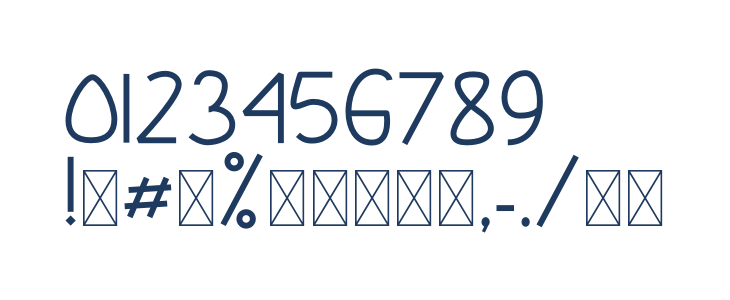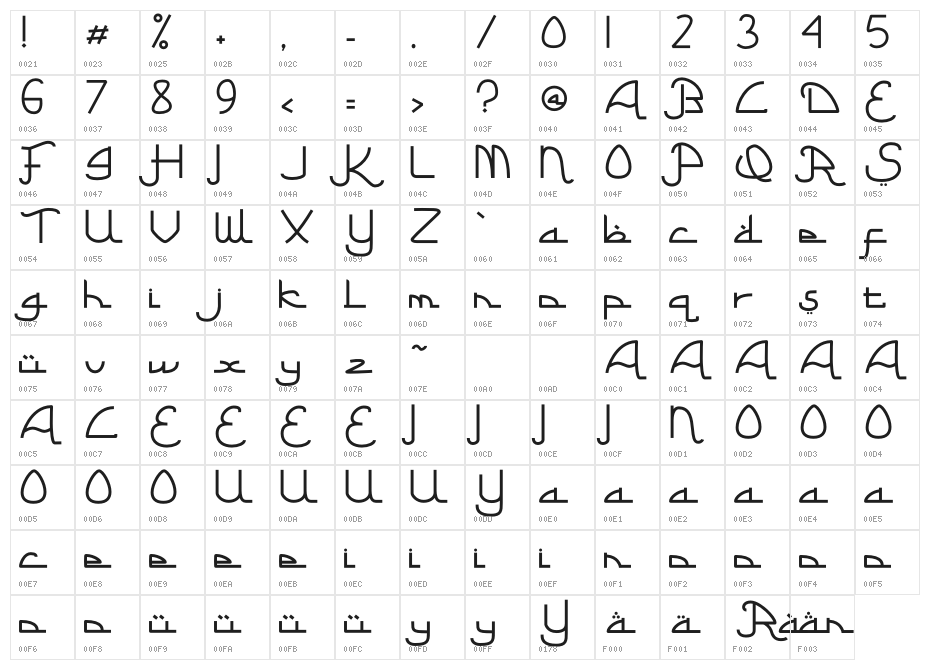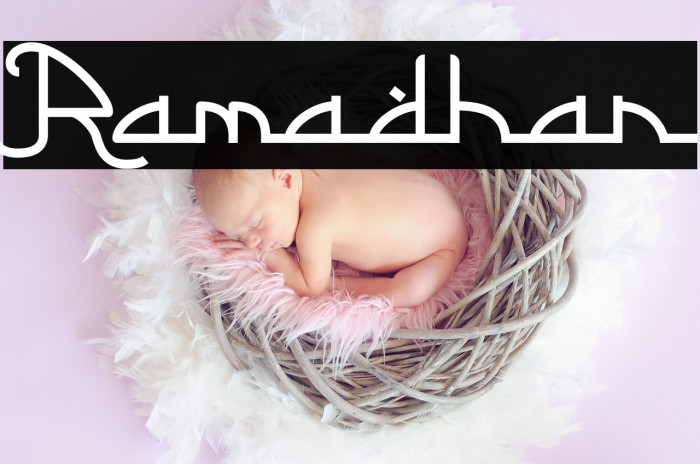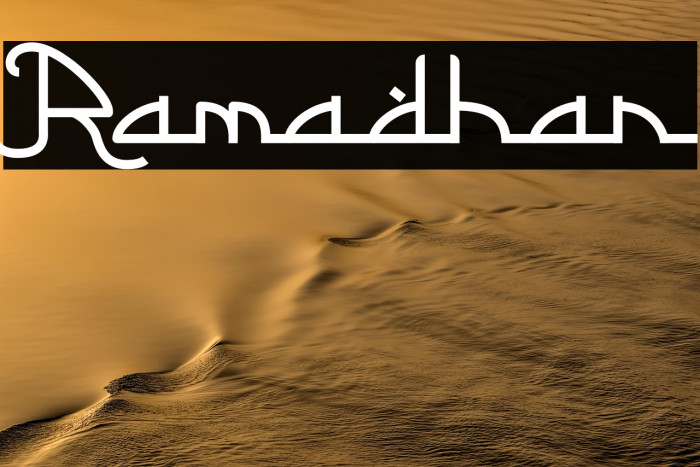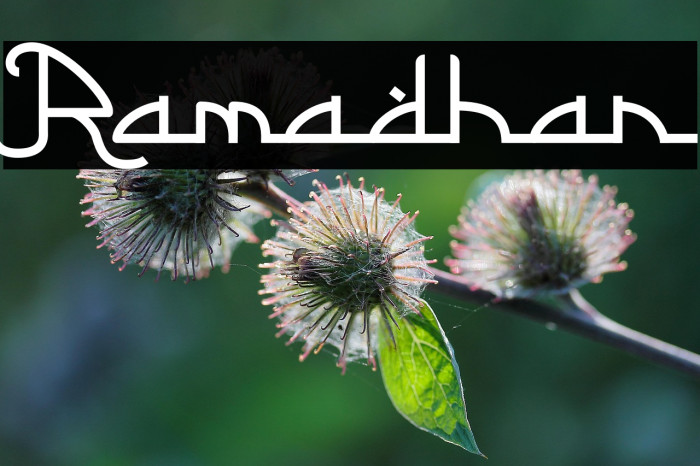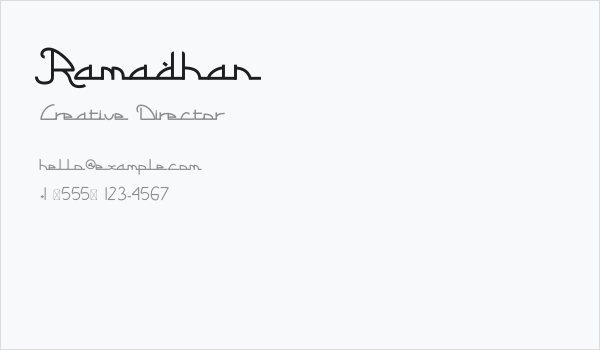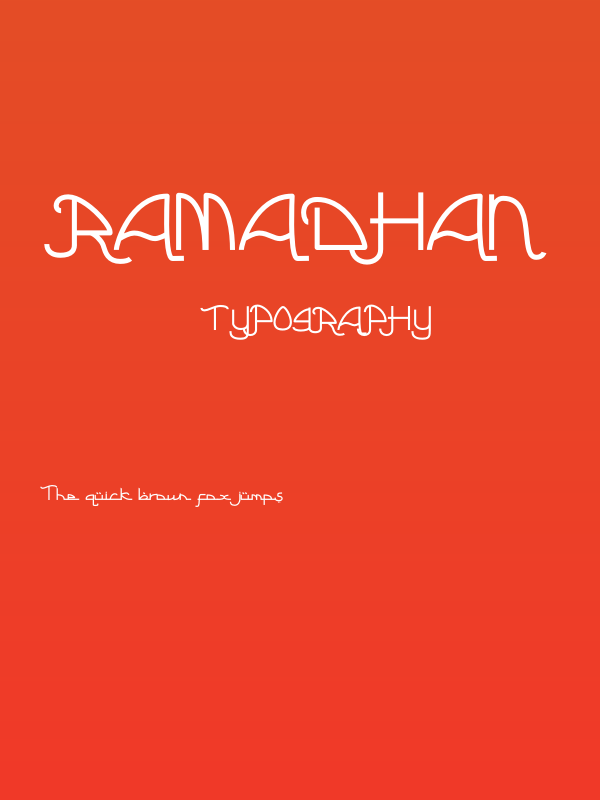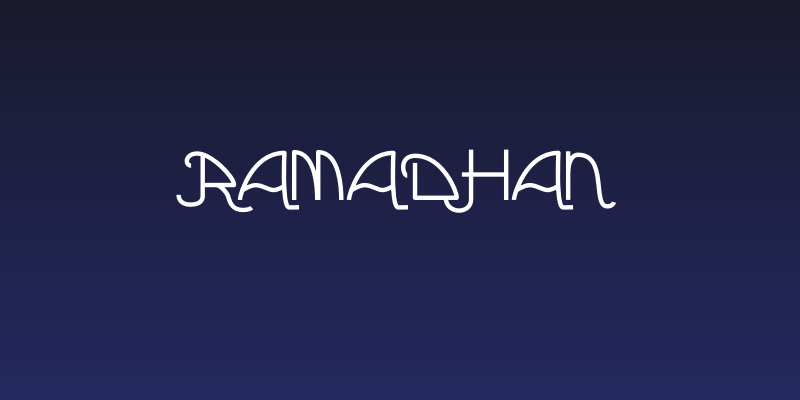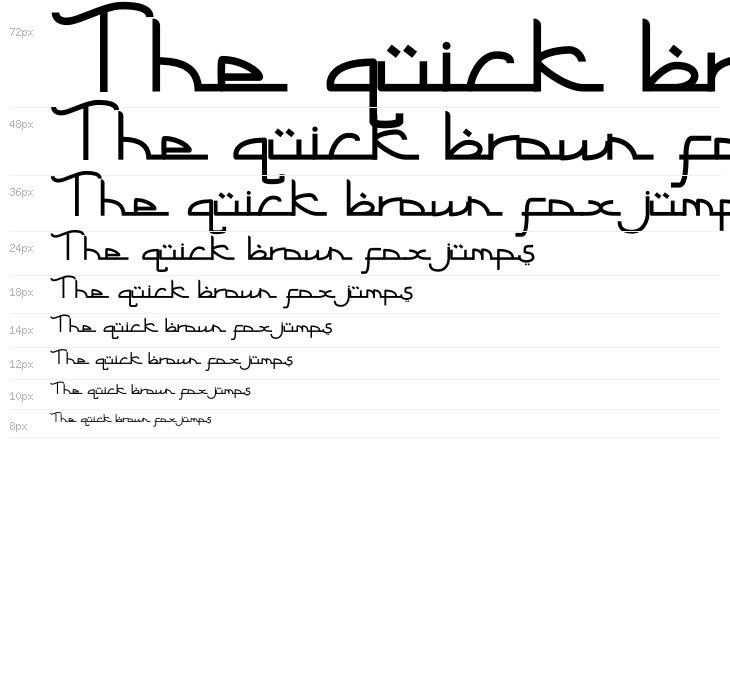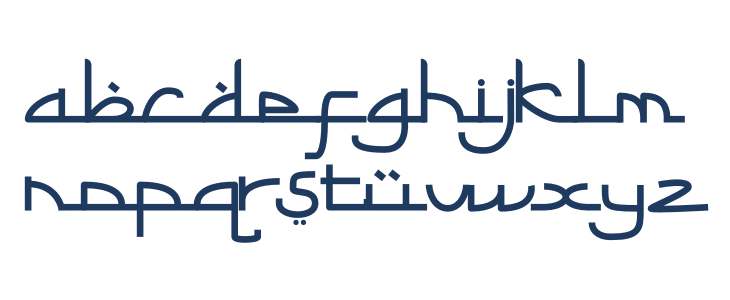
Ramadhan Font
Ramadhan Description
This font features a unique and modern design with a geometric structure. The uppercase letters have a distinctive style with curved lines and sharp angles, creating a futuristic appearance. The lowercase letters maintain a consistent design, with some characters extending below the baseline, adding to the font's dynamic look. The numerals are bold and clear, matching the overall aesthetic of the font. Special characters are included, maintaining the same geometric and modern style. This font is ideal for projects that require a contemporary and innovative touch.